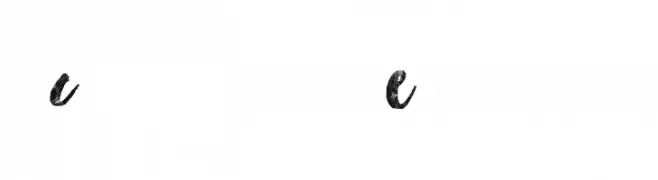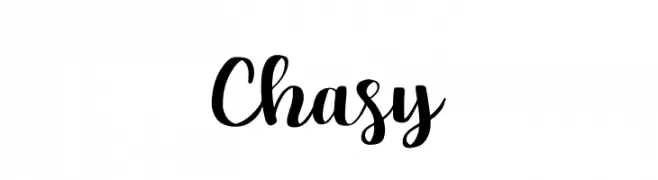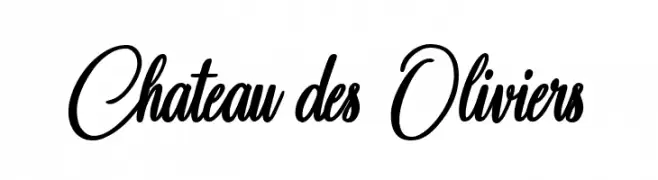
A bold, brush-style font with textured, dynamic strokes.
A playful, dotted font with a dynamic and modern aesthetic.
A bold, flowing script font with interconnected letters and expressive strokes.
A bold, slab serif font with a vintage yet modern appeal.
A graceful and elegant script font with flowing, connected strokes.
A bold, geometric font with a vintage yet modern appeal.
A modern, geometric sans-serif font with clean lines and a bold presence.
A playful and elegant script font with a handwritten style.
A dripping, horror-themed font perfect for spooky designs.
A bold, distressed font with a vintage, grunge aesthetic.